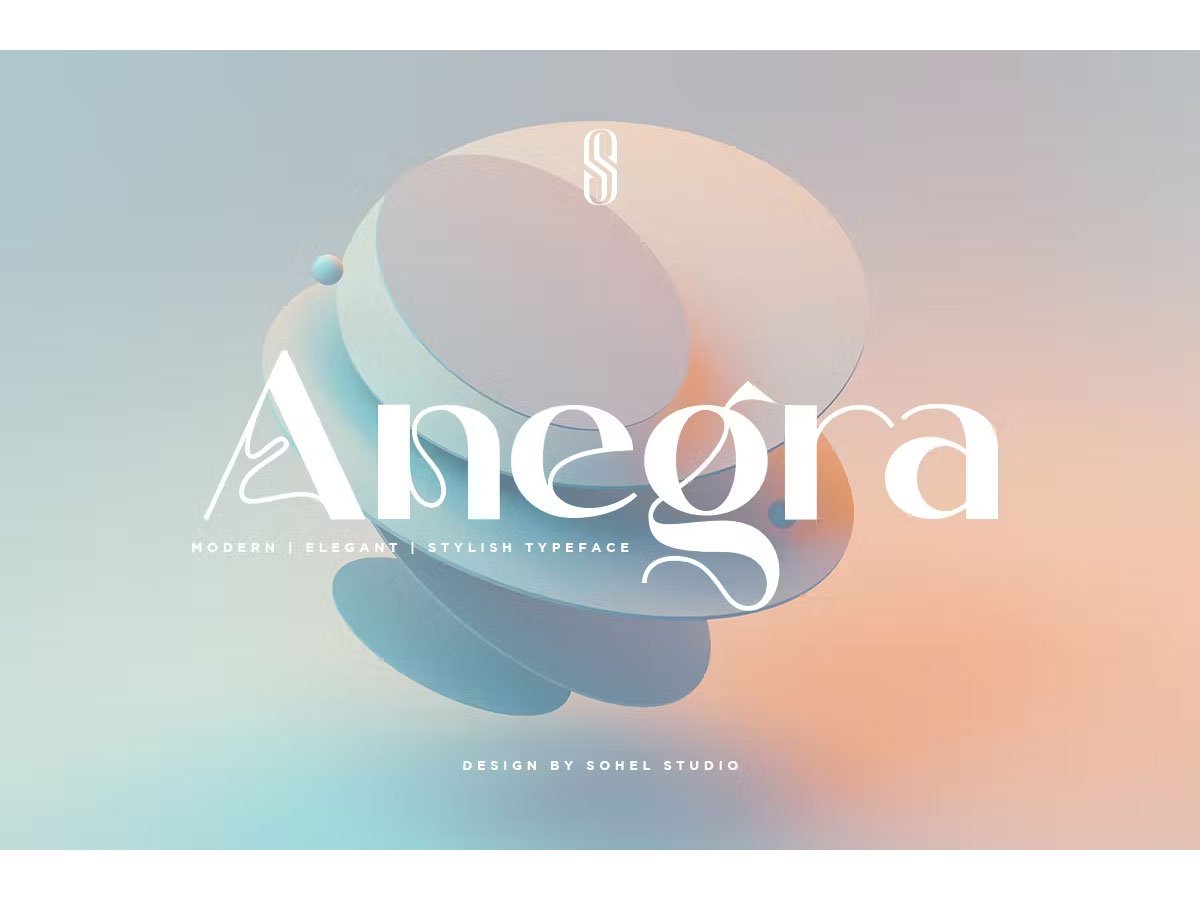
Anegra Font – is a Modern elegant Sans-serif typeface with Unique alternative , multilingual support with perfect kerning. This typeface is perfect for an elegant & luxury logo , classy editorial design, women’s magazine, fashion brand , cosmetic brand, fashion promotion , modern advertising design, invitation card, art quote, home decoration , book/cover titles, special events, Tote bag, T-shirt, Advertising and much more.
Anegra Features:
- Uppercase And Lowercase
- Alternates And Ligatures
- Numerals & Punctuation
- Accented characters